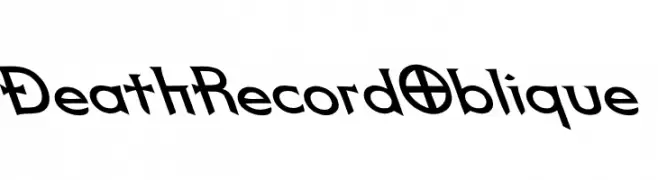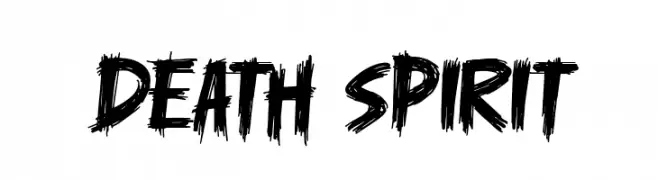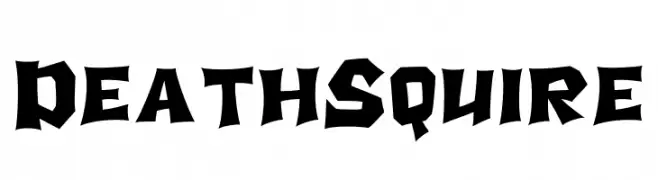
• Death Mohawk PERSONAL USE Regular
A decorative and edgy font with thorn-like, intricate details.
• DEATH OCEAN
A bold, geometric font with a futuristic and industrial design.
• Death Party
A bold, dripping font ideal for horror and Halloween themes.
• Death Party - Personal Use
A bold, dripping font with a horror-themed aesthetic.
• Death Record
A gothic, medieval-inspired font with sharp, angular lines and unique letterforms.
• Death Record Italic
A bold, italic font with gothic influences and sharp, angular serifs.
• Death Record Oblique
A bold, angular font with an oblique style, perfect for impactful designs.
• Death Rock Regular
A bold, brushstroke-style font with an edgy, rebellious aesthetic.
• Death Spirit
A bold, brush-stroke font with an aggressive, hand-drawn aesthetic.
• Death Squire
A bold, angular font with a jagged, distressed style.